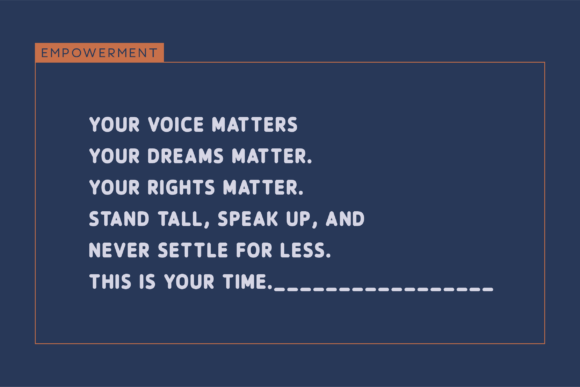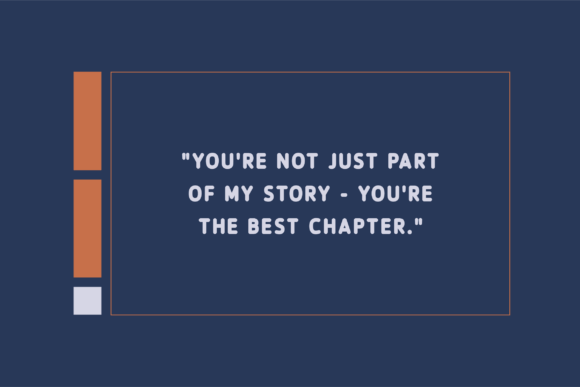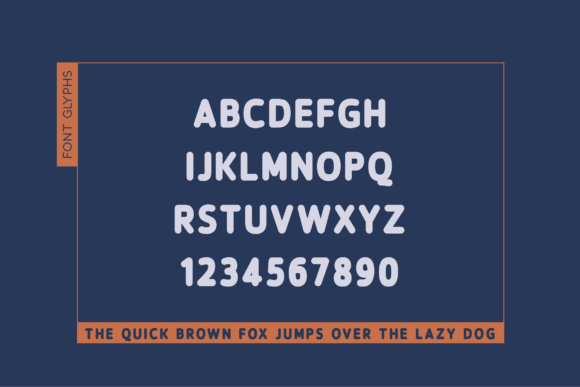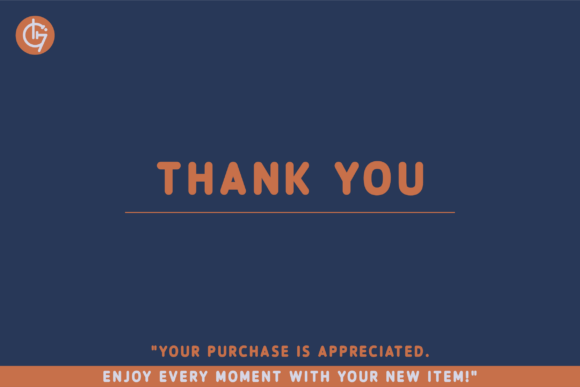
Introduction to Metcha Font
Have you ever stared at a blank canvas, eager to bring a new creative project to life, only to find yourself stuck in a sea of generic fonts? That’s when the spark hits – you’re on the hunt for the perfect design resource to elevate your vision. That’s exactly what happened to many designers who discovered the Metcha Font, a game-changing sans-serif display typeface that’s about to revolutionize your creative endeavors.
The Metcha Font is more than just a stylish addition to your design arsenal – it’s a powerful tool that embodies the spirit of modern creativity and industrialism. With its bold, chunky letterforms and rounded character, this font screams high-quality and attention-grabbing, making it the ultimate choice for designers looking to create a “pop” effect in their branding, toy packaging, or gaming assets.
Key Features of Metcha Font
- High-quality design: Metcha Font is a premium font that offers crisp and clear typography for any creative project.
- Unique characteristics: Metcha Font features a unique blend of modern and vintage elements, making it perfect for creative projects that require a touch of elegance and sophistication.
- Perfect for creative projects: Whether you’re working on a logo, brochure, or website, Metcha Font is an excellent choice for any design project that requires high-quality typography.
Honest Review: Metcha Font
- ✨ High-quality design that’s perfect for a variety of creative projects, from branding to digital media.
- ✨ A versatile font that’s suitable for both professional and personal use.
- ⚠️ Limited character set, which may not be ideal for projects that require a wide range of special characters.
Overall, I’m impressed with the Metcha Font, and I would definitely recommend it as a design resource for anyone looking for high-quality typography. While it has its limitations, it’s a great starting point for many creative projects.
Tips for Getting the Most Out of Metcha Font
To maximize the potential of the Metcha Font, experiment with different font sizes, colors, and combinations with other design elements. This will help you achieve a unique and eye-catching design for your creative project.
The Metcha Font is ideal for various design projects, including branding, advertising, and editorial content. Its high-quality and transparent background make it an excellent choice for creating visually appealing and professional designs.